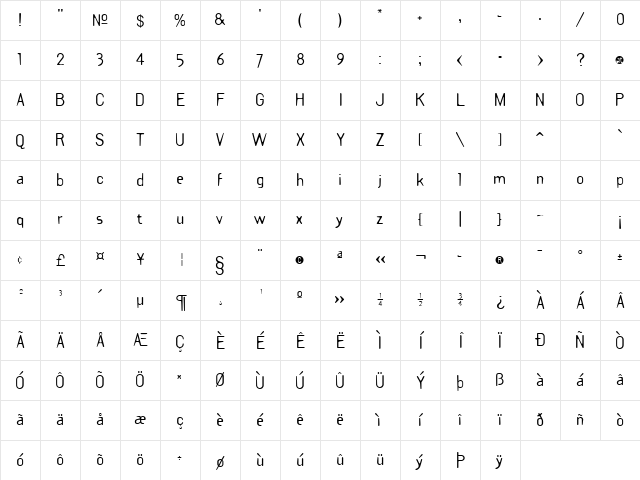
Draft Plate Regular Free Font
Draft Plate Regular
Draft Plate Family
Draft Plate Regular
Complete Draft Plate Regular glyph index. Displaying only characters natively supported by Draft Plate Regular font.
Design Context for Draft Plate
Draft Plate is a composed and adaptable typeface that performs quietly and consistently across a wide range of design contexts.